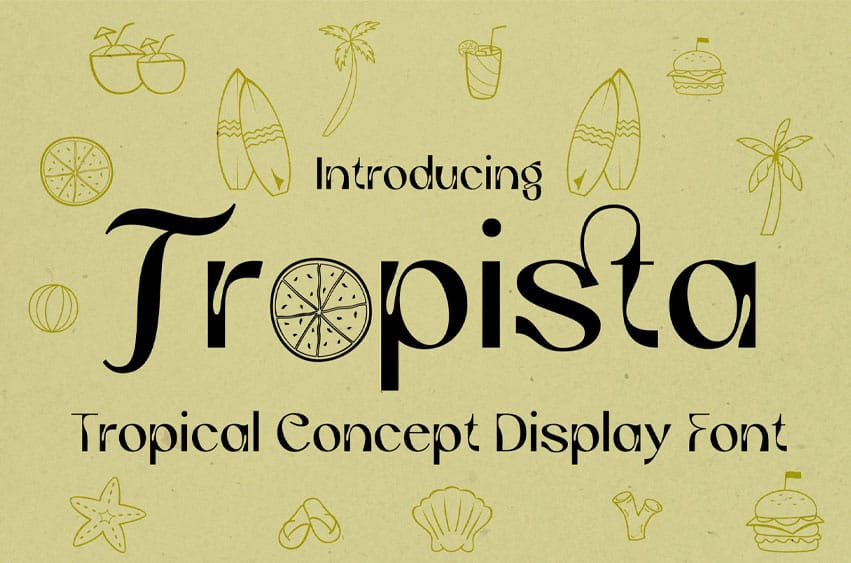
Tropista Font Tropical Concept Font is a unique display font that is inspired by the liquid forms found in tropical climates. The font features glyphs that are designed to represent the fertility and vibrancy of the tropics. When paired with the regular and stylish font, Tropista becomes a versatile tool for all your tropical design needs.